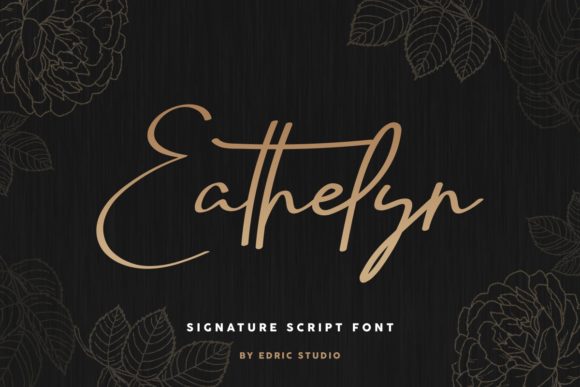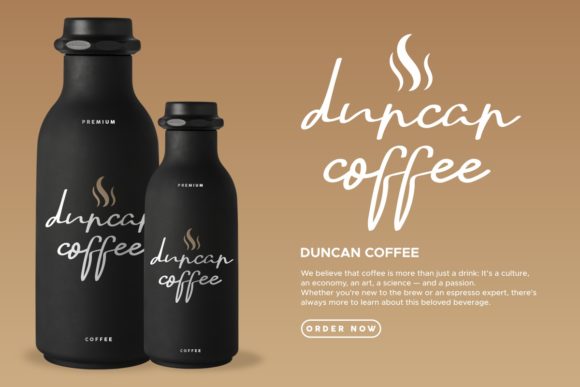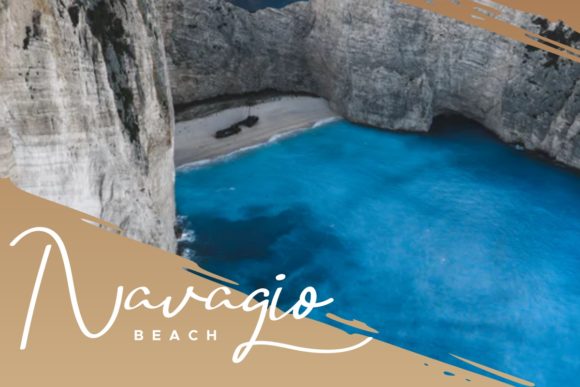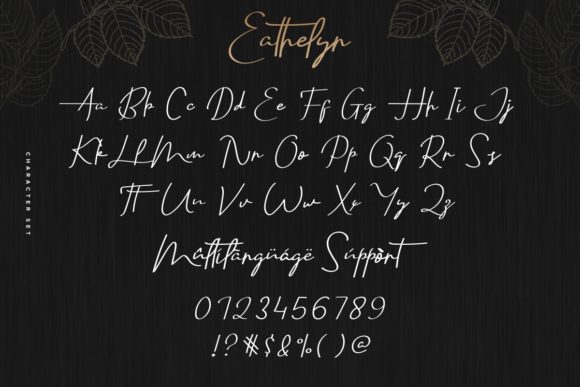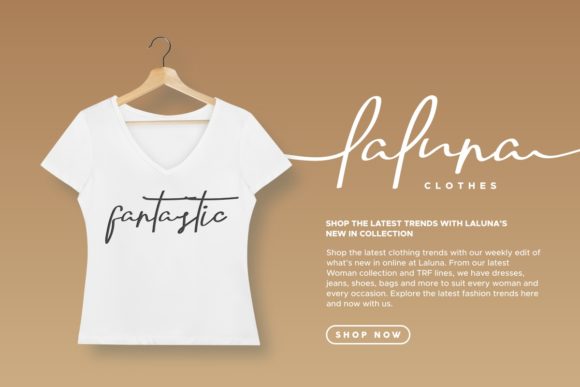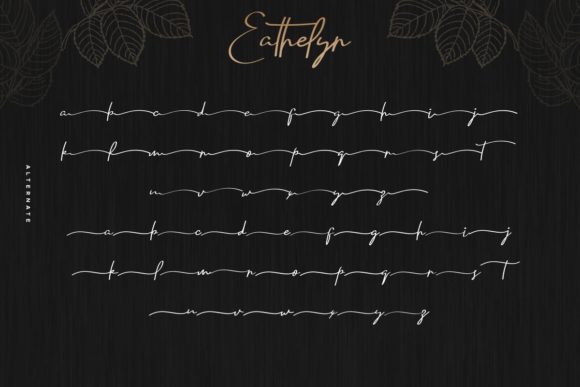
Eathelyn Font: Elevate Your Designs with Elegance and Sophistication
In the world of typography, a well-crafted font can make all the difference in elevating your design to the next level. If you’re a designer, craftsperson, or simply someone who appreciates beautiful typography, you’re in luck. Introducing Eathelyn, a stunning cursive script font that exudes elegance, sophistication, and a touch of whimsy.
The Characteristics of Eathelyn Font
Eathelyn is a masterfully designed font that boasts a range of characteristics that make it perfect for a wide range of design applications. This graceful, radiant, and cursive script font features:
- Beautiful and well-balanced characters: Each letter in the Eathelyn font has been carefully crafted to ensure that it is visually appealing and harmonious with the others.
- Varying baseline: The font’s varying baseline adds a touch of organic elegance to your designs, making them feel more hand-crafted and unique.
- Smooth lines: Eathelyn’s smooth lines create a sense of fluidity and movement, making it perfect for designs that require a sense of dynamism.
- Gorgeous glyphs: The font comes with a range of gorgeous glyphs that add an extra layer of depth and interest to your designs.
- Stunning alternates: With Eathelyn, you’ll have access to a range of stunning alternates that allow you to add even more personality and flair to your designs.
Why Choose Eathelyn Font?
So, why should you choose Eathelyn font for your next design project? Here are just a few compelling reasons:
- Versatility: Eathelyn’s beautiful and well-balanced characters make it perfect for a wide range of design applications, from wedding invitations and branding materials to packaging and digital graphics.
- Elegance: This stunning cursive script font exudes elegance and sophistication, making it perfect for designs that require a touch of luxury and refinement.
- Easy to read: Despite its elegant and cursive nature, Eathelyn is surprisingly easy to read, making it perfect for designs that require a clear and legible font.
- Unique and eye-catching: With its varying baseline, smooth lines, and gorgeous glyphs, Eathelyn is a font that is sure to grab attention and leave a lasting impression.
How to Use Eathelyn Font in Your Designs
Using Eathelyn font in your designs is easy. Here are a few tips to get you started:
- Pair it with bold fonts: Eathelyn pairs beautifully with bold, sans-serif fonts, making it perfect for designs that require contrast and visual interest.
- Use it for headings and titles: This stunning cursive script font is perfect for headings and titles, where it can add a touch of elegance and sophistication.
- Experiment with colors: Eathelyn looks beautiful in a range of colors, from rich jewel tones to soft pastels. Experiment with different colors to find the perfect look for your design.
- Add a personal touch: With its range of gorgeous glyphs and stunning alternates, Eathelyn is a font that invites creativity and experimentation. Don’t be afraid to add your own personal touch to your designs.
In conclusion, Eathelyn font is a stunning cursive script font that is sure to elevate your designs to the next level. With its beautiful and well-balanced characters, varying baseline, smooth lines, gorgeous glyphs, and stunning alternates, this font has everything you need to create elegant, sophisticated, and eye-catching designs. Whether you’re a designer, craftsperson, or simply someone who appreciates beautiful typography, Eathelyn is a font that is sure to inspire and delight.